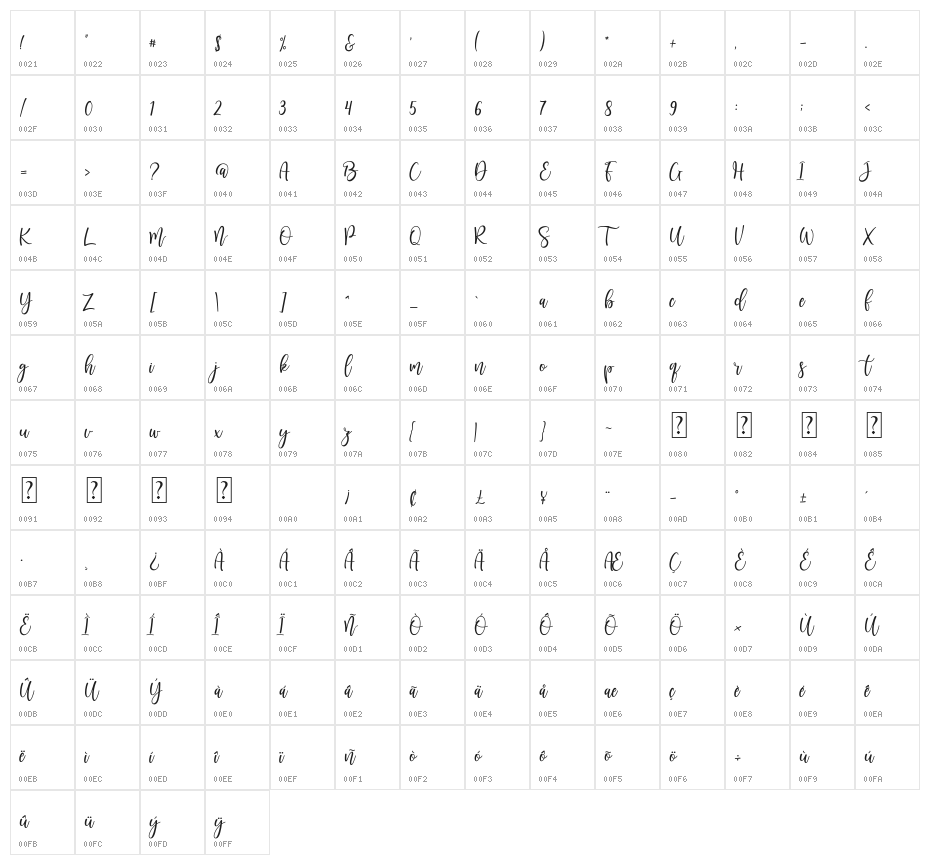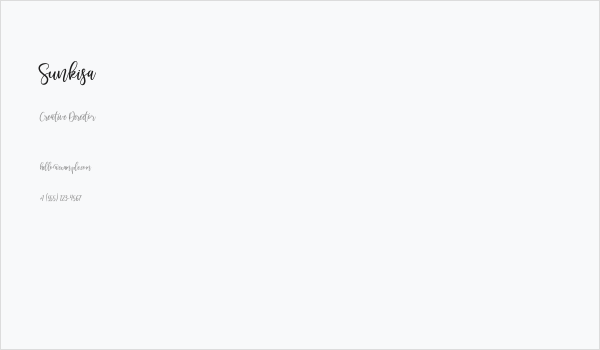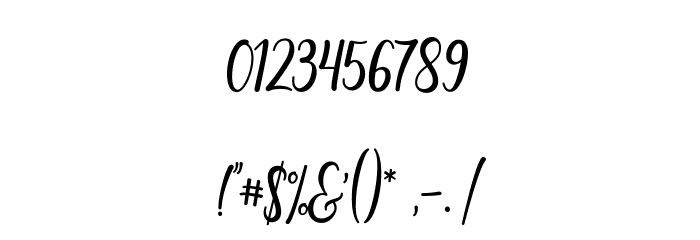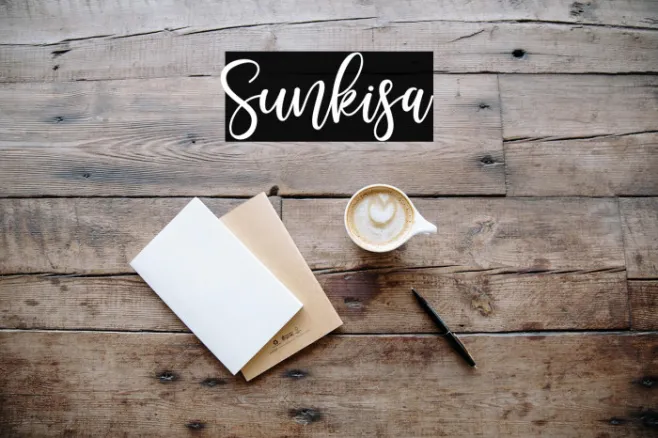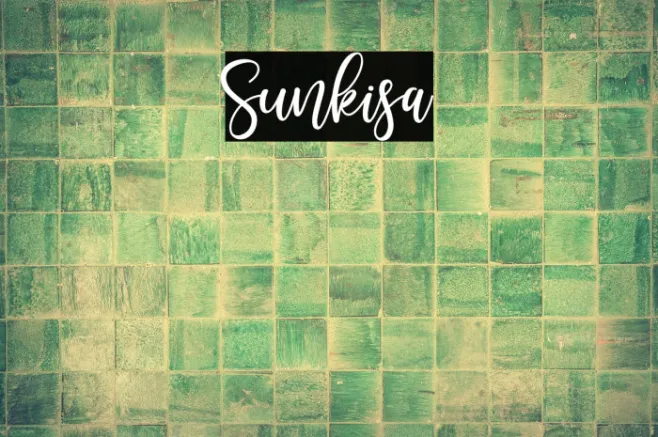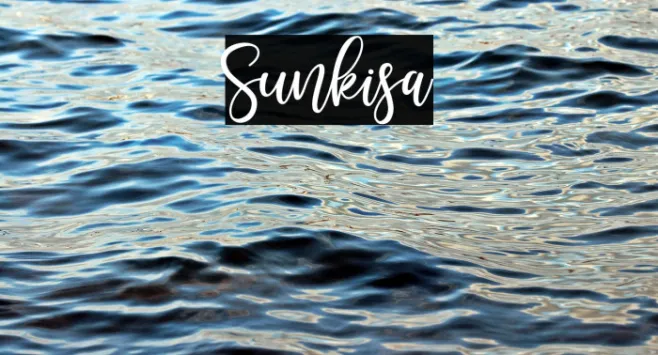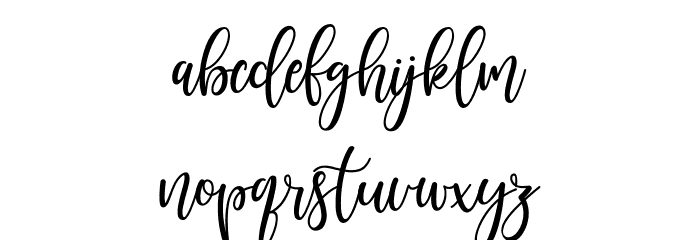
Sunkisa Font
Sunkisa Description
This font features a flowing, cursive style with elegant loops and swirls, giving it a handwritten appearance. The uppercase letters are bold and expressive, with a playful yet sophisticated flair. The lowercase letters maintain a consistent style, with smooth connections between each character, enhancing the script's fluidity. Numbers and special characters are designed to match the overall aesthetic, ensuring a cohesive look across all text elements. The font's artistic nature makes it ideal for creative projects that require a personal touch.